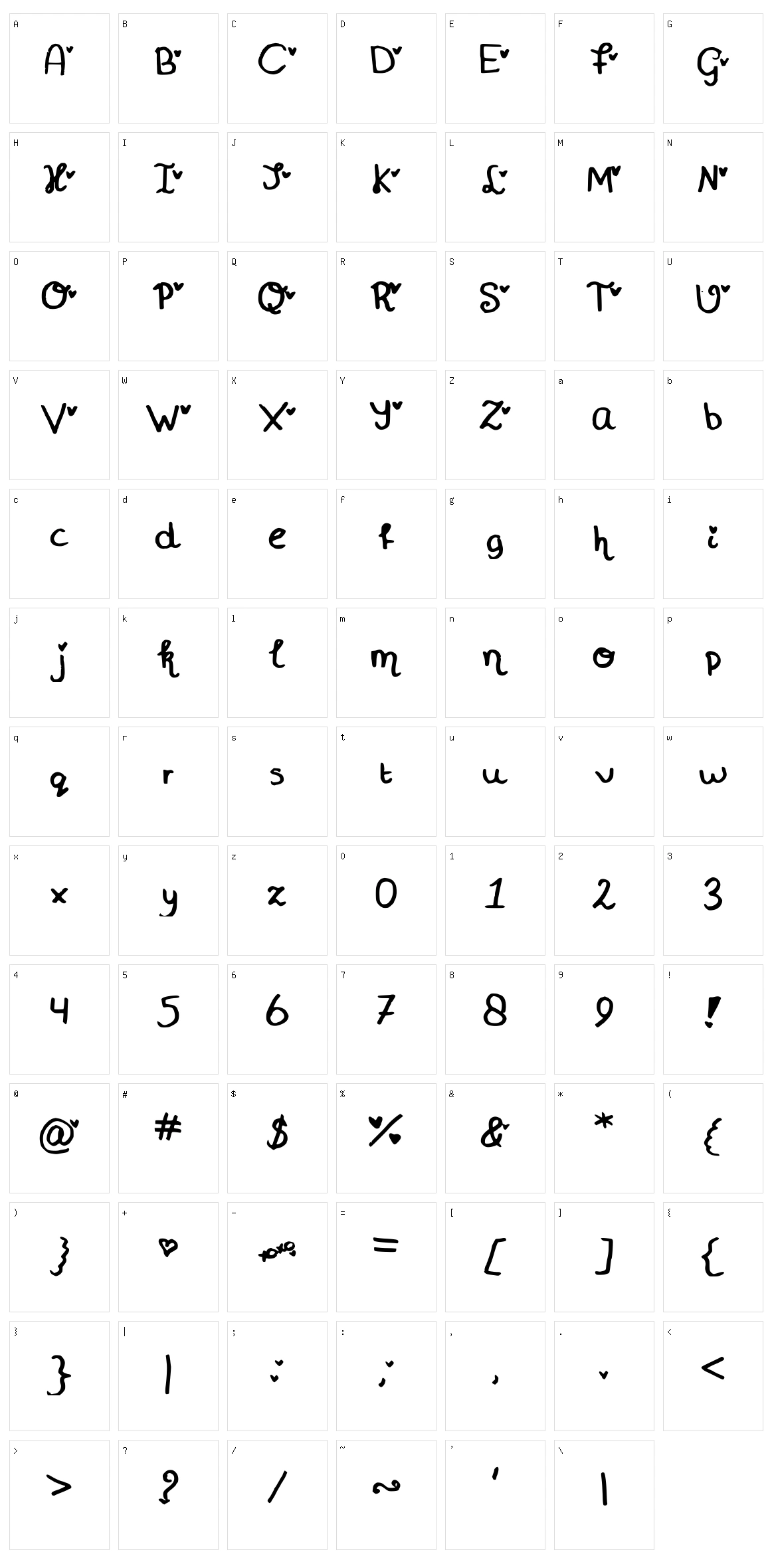
The free font Mini Heart is carefully designed by PlumbobsandHolosprites, showcasing a thoughtful balance of creativity and usability and falls under the Valentine font style. When you download the ZIP file, it contains only 24.6 KB of font files, making it lightweight and quick to download. Please review the license details below to understand permitted usage and distribution rights. If license information is not available, we recommend using this font for personal projects only or contacting the author directly for commercial usage permissions.